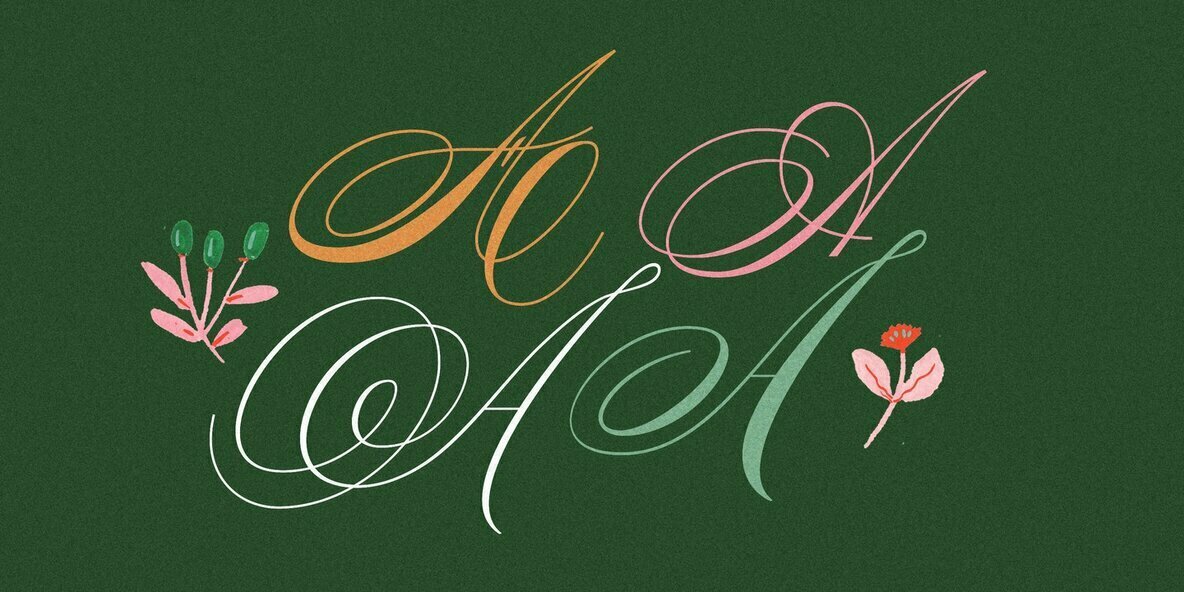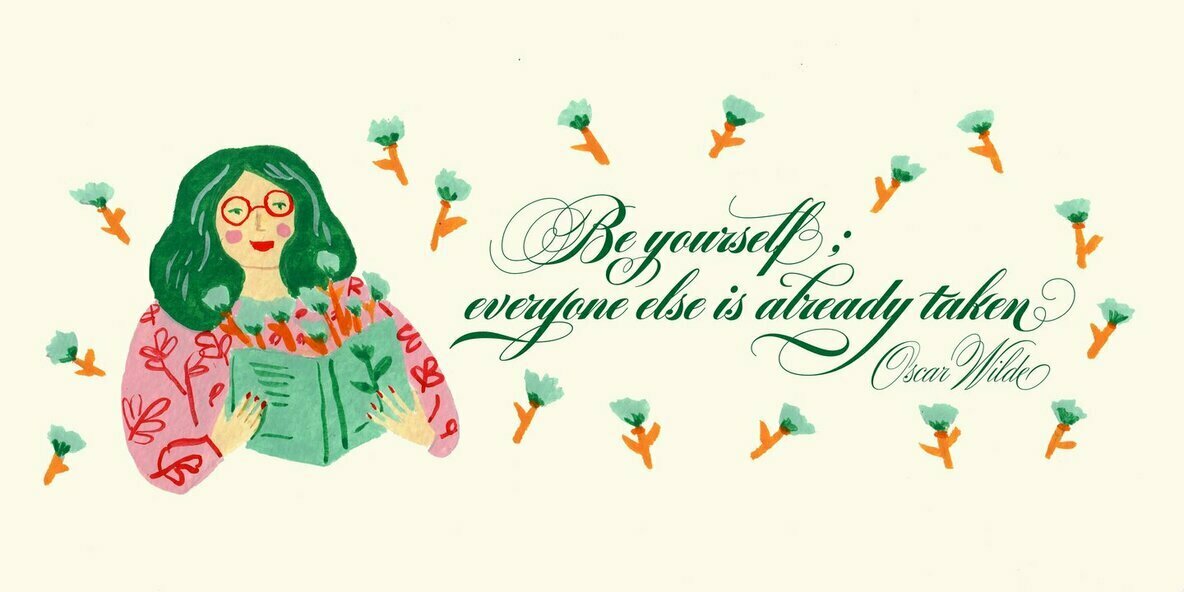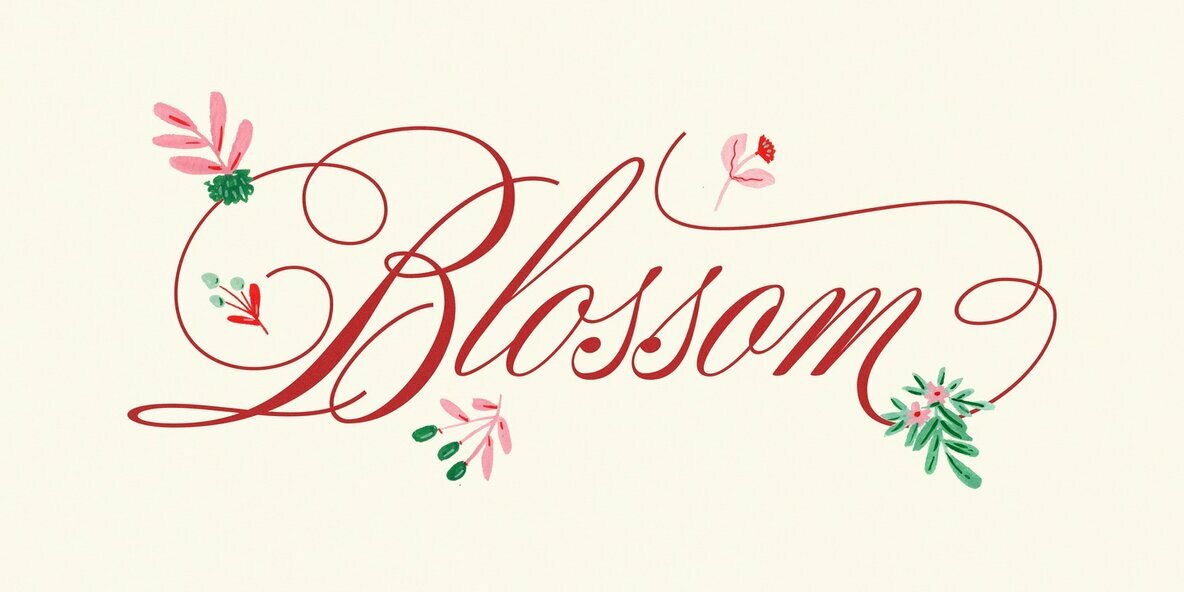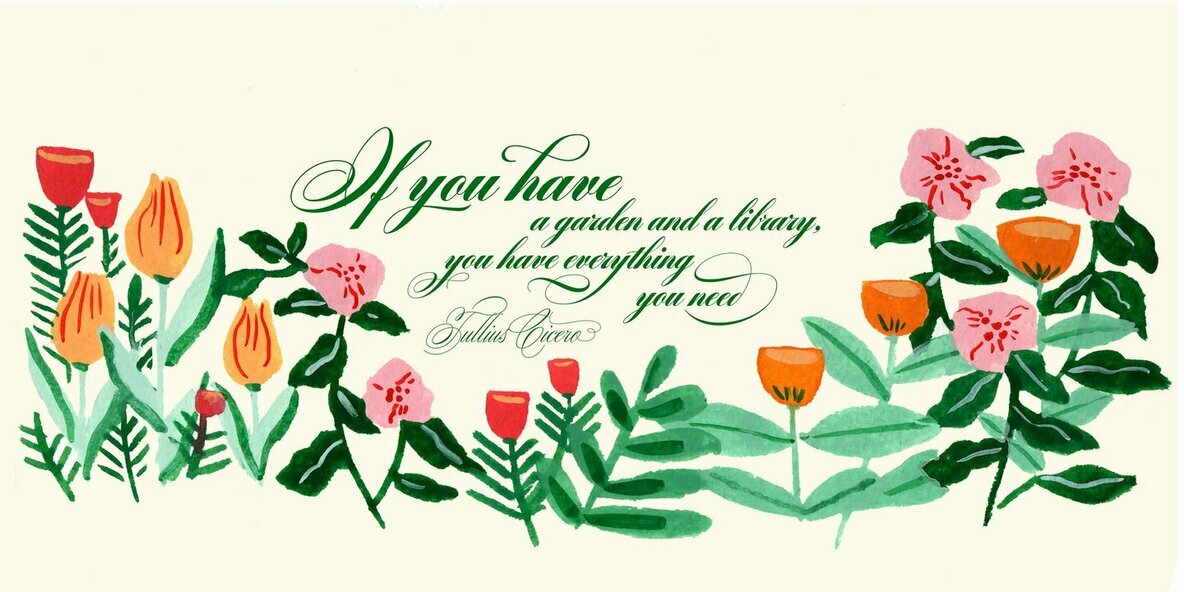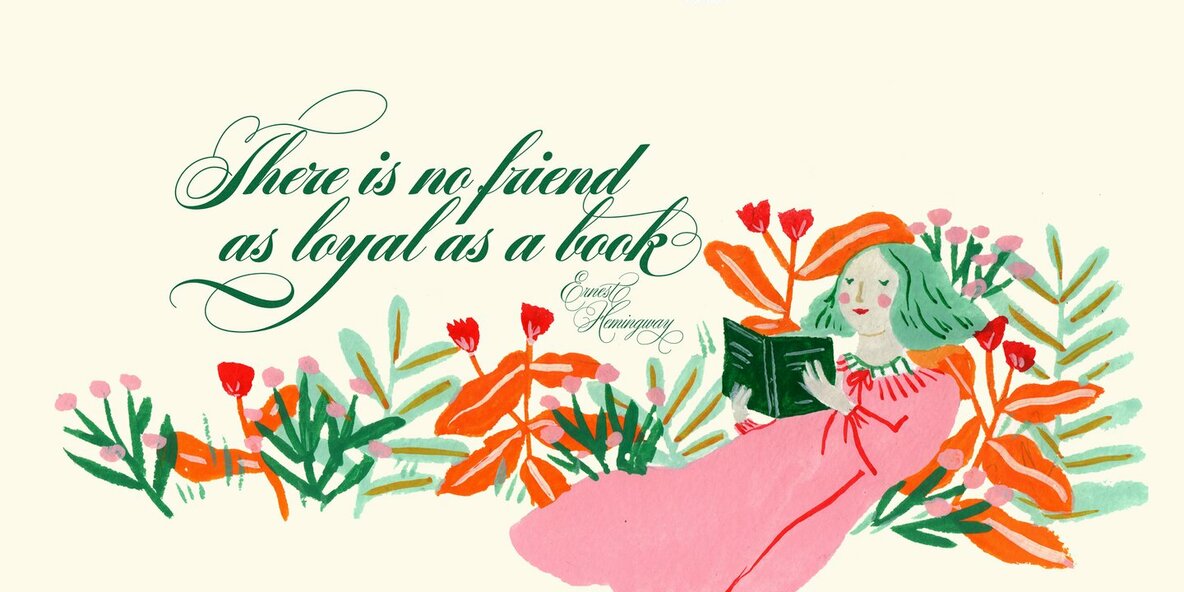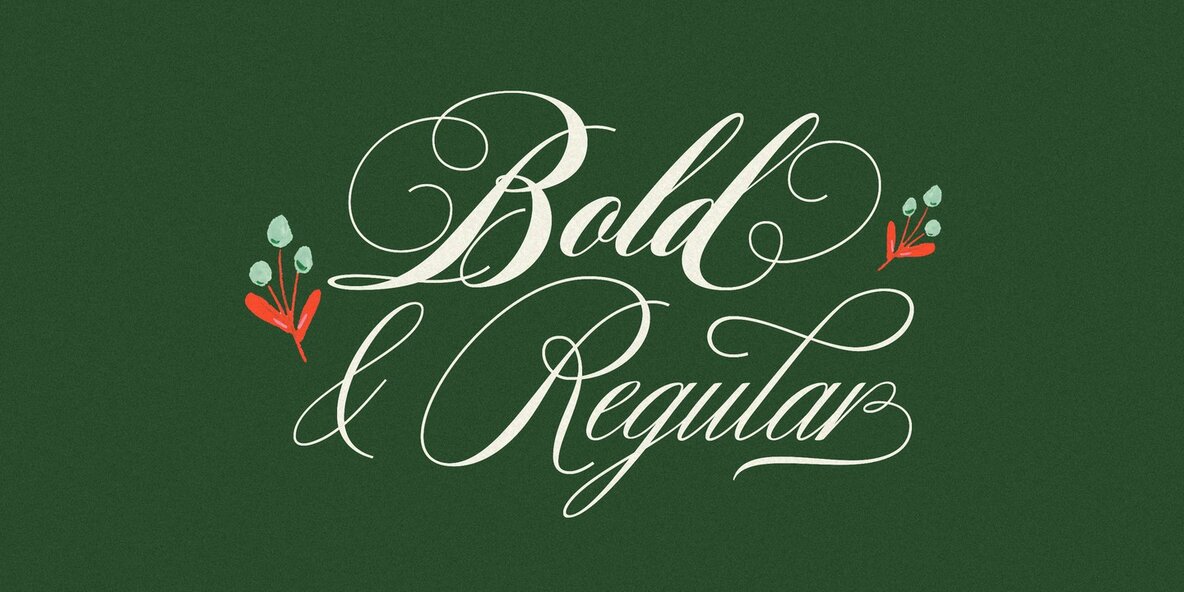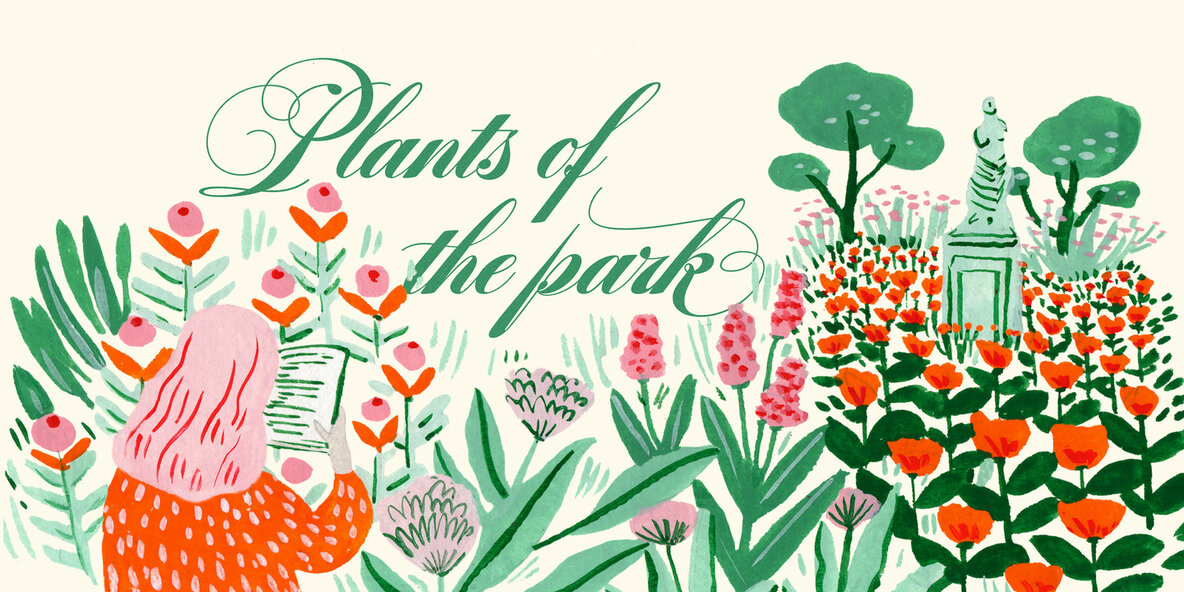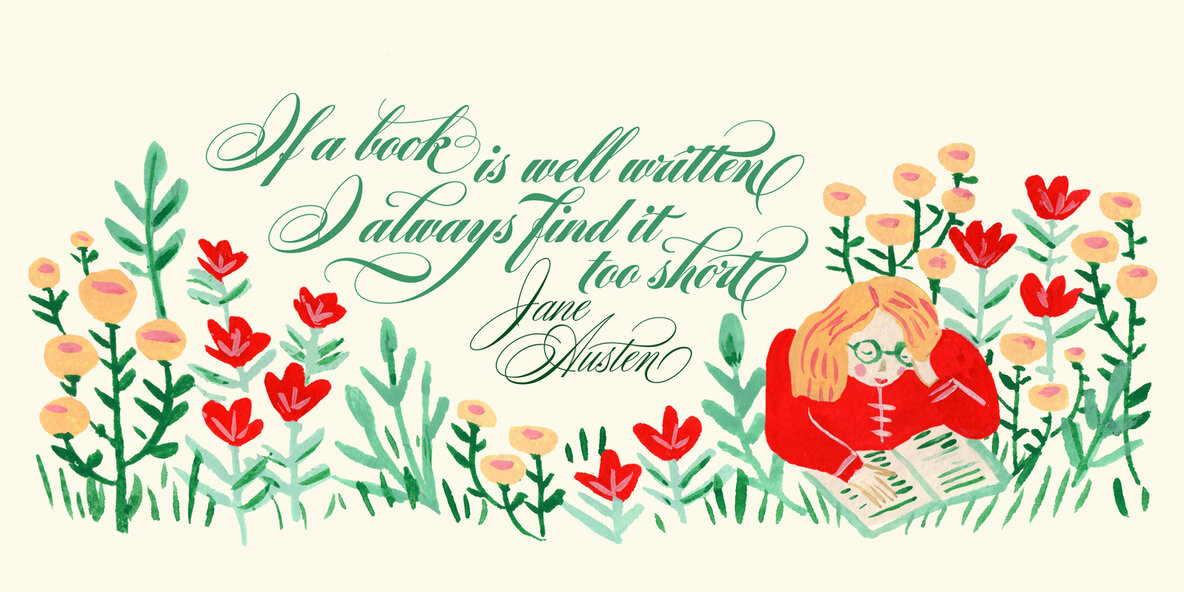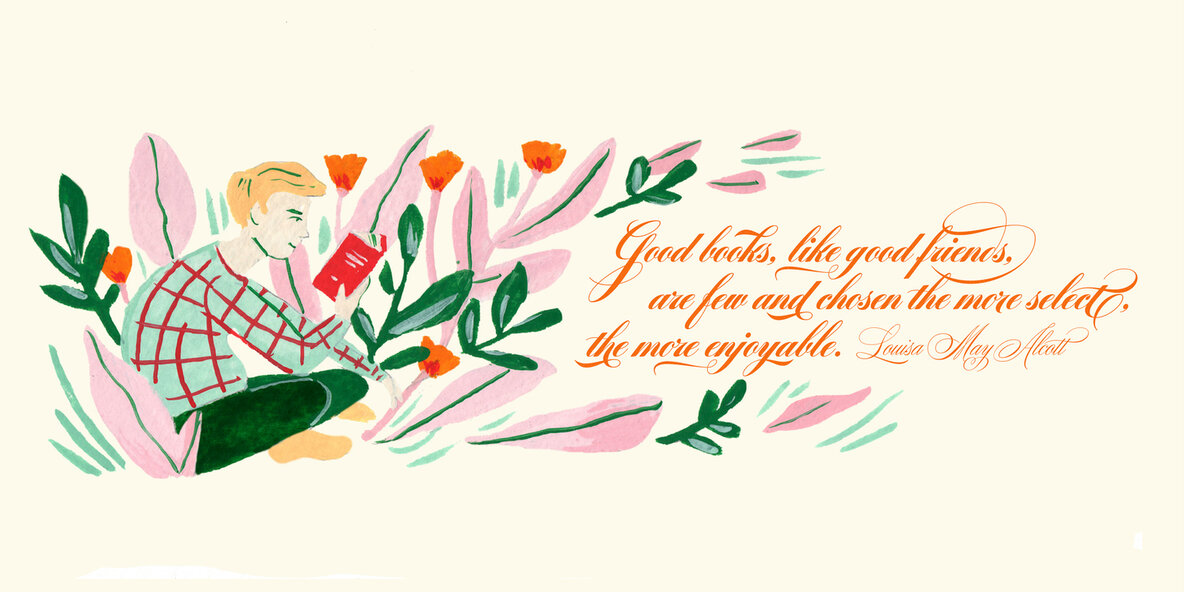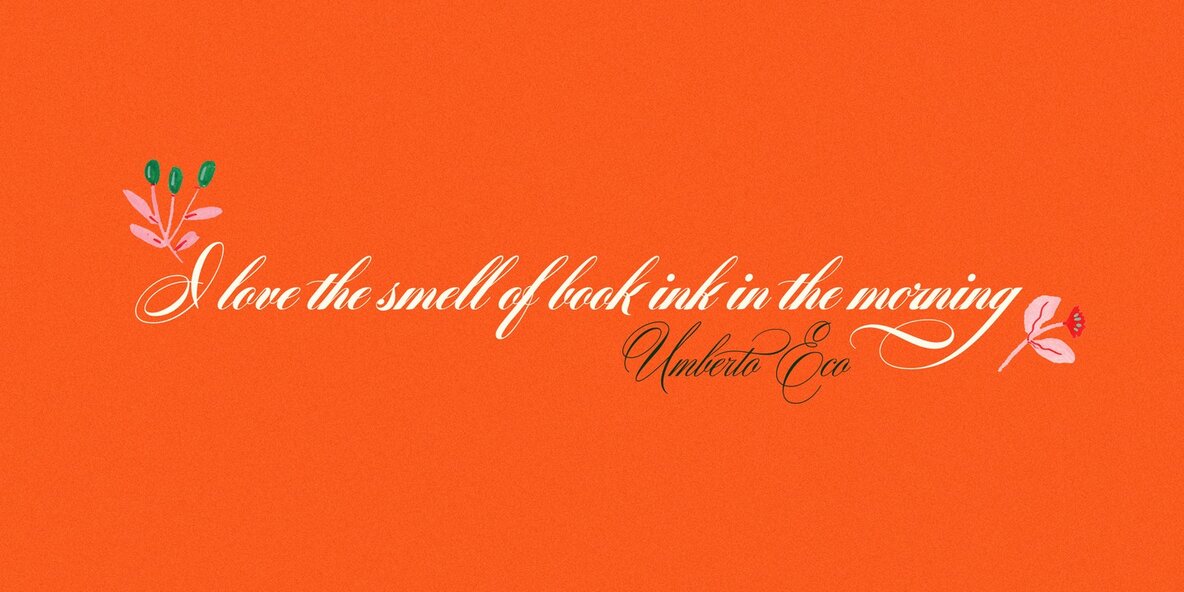
Bibliophile Script Font
A friend once jokingly told me that what I really do is mine extinct arts for parts to use in modern things, like going to the scrapyard to pick up bumpers, quarter-panels and dashboards off of Datsuns and Ponies to build a shiny new Ferrari. I still kind of grin at that, but I certainly do spend a lot of time looking at old things and imagining ways they would work today.
This shiny new Ferrari here is called Bibliophile, and it contains scrap heap parts from various pages by Louis Prang, the Prussian-American printer and publisher who inspired my Prangs fonts. This is my second engagement with the late 19th century man, and it’s quite a bit more intricate than just an italic Didone with a connected lowercase. Bibliophile marries Round Hand calligraphy with Italian capitals, two styles not often relayed in the same alphabet, but work together beautifully when combined well. When you combine them well with a few long-practised tricks of the trade, then mix in a few trusted features from my previous work over the years, you get my usual crazy exuberance, like 17 different shapes for the d, 21 different forms for the y, endings, beginnings, swashes, ornaments, and so on. It’s no secret that I can get carried away when I’m so consumed by an idea.
Bibliophile comes in 2 weights, each of them with over 900 glyphs covering all the latin languages.
Bibliophile also comes with a bold weight, something I’m always reluctant to do with something as adventurous and complex as the structure of this historical mashup. But I couldn’t chase away the idea of increasing the contrast while maintaining the hairlines in a lowercase this narrow. Part of it was the curiosity about the outcome, and part was the sheer challenge of it. I think it turned out OK.
Words set in either weight will show delicateness and elegance, and the more time you spend inside the font and micro-manage the setting, the more ways you will find to magnify either. Bibliophile can be as muted or luxurious as you want it to be. This is the kind of alphabet that fits well in fashion marketing and high-end packaging, from the very subdued to the super-exquisite. Enjoy the gleaming new vehicle made with freshly polished old parts.